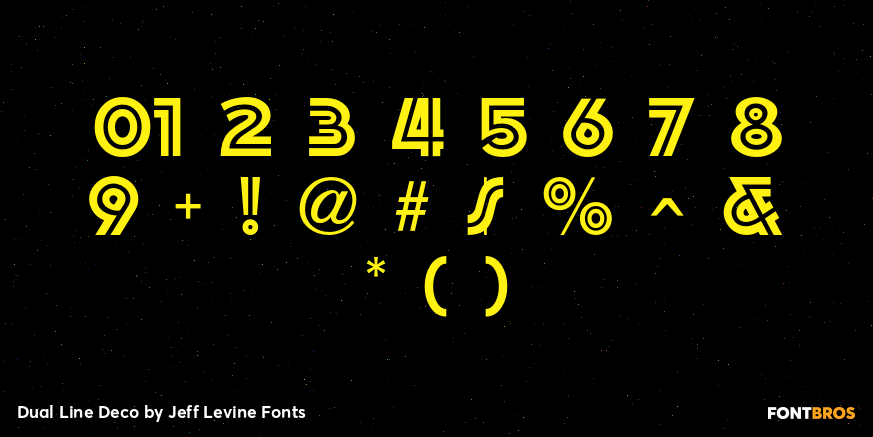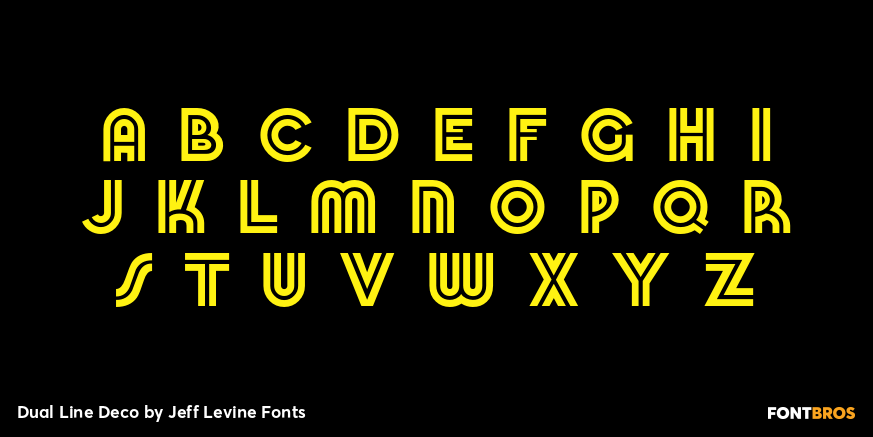
Dual Line Deco
Sheet music for the title song from the 1933 Jean Harlow-Clark Gable film 'Hold Your Man” has the movie title hand lettered in a dual line sans serif with Art Deco influences.
This is now available as Dual Line Deco, and is available in both regular and oblique versions.
Dual Line Deco includes 213 glyphs.